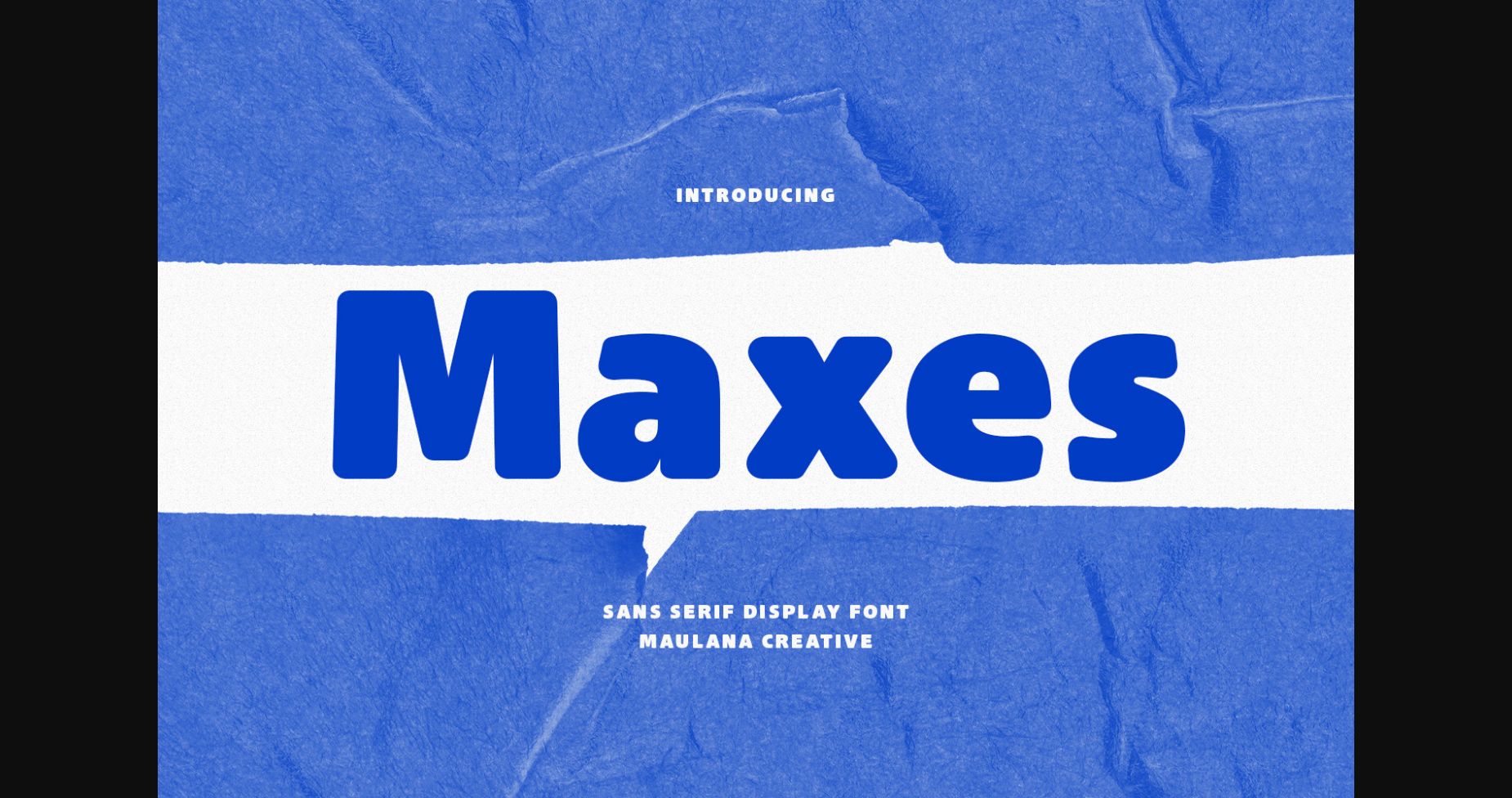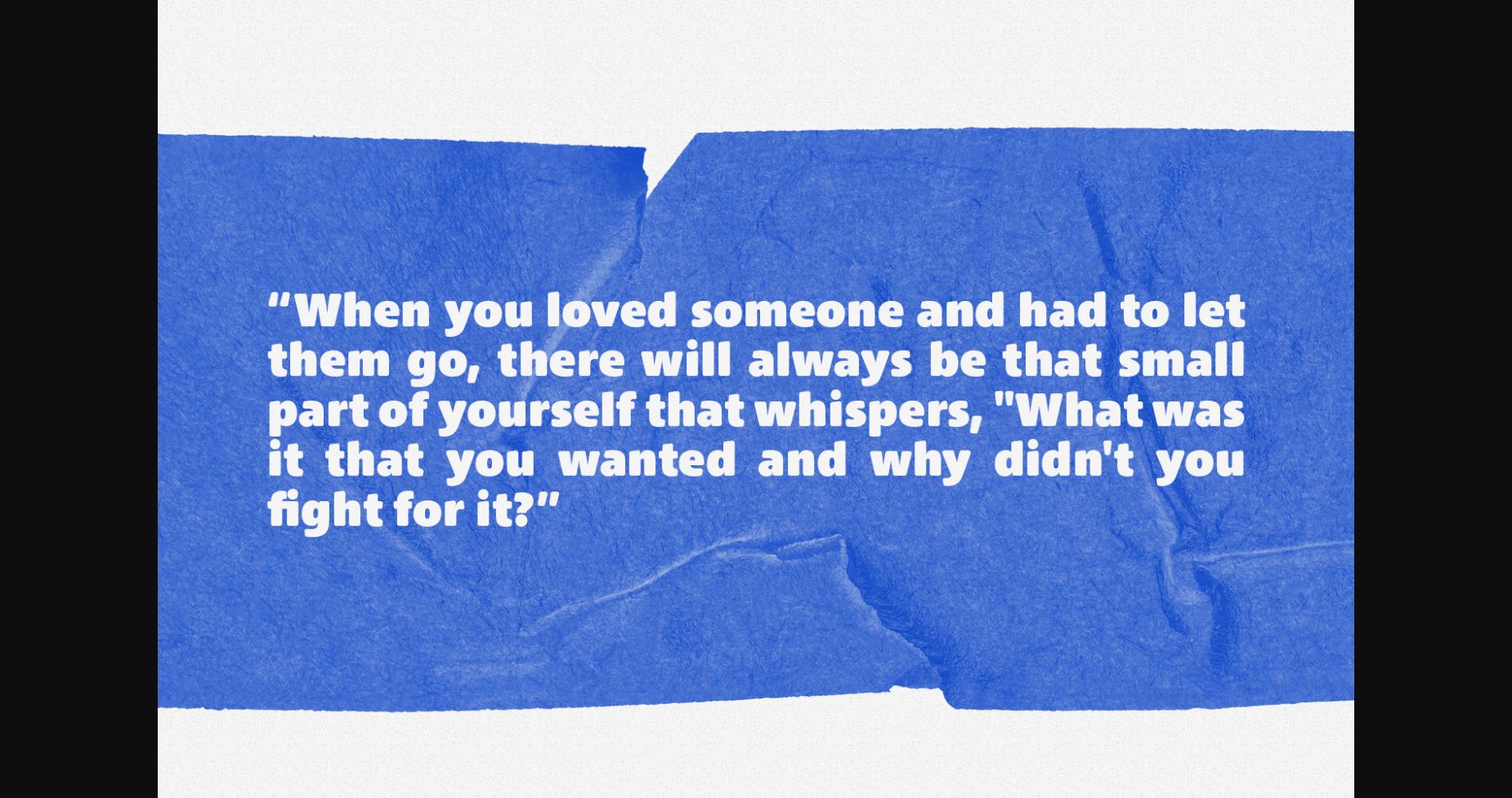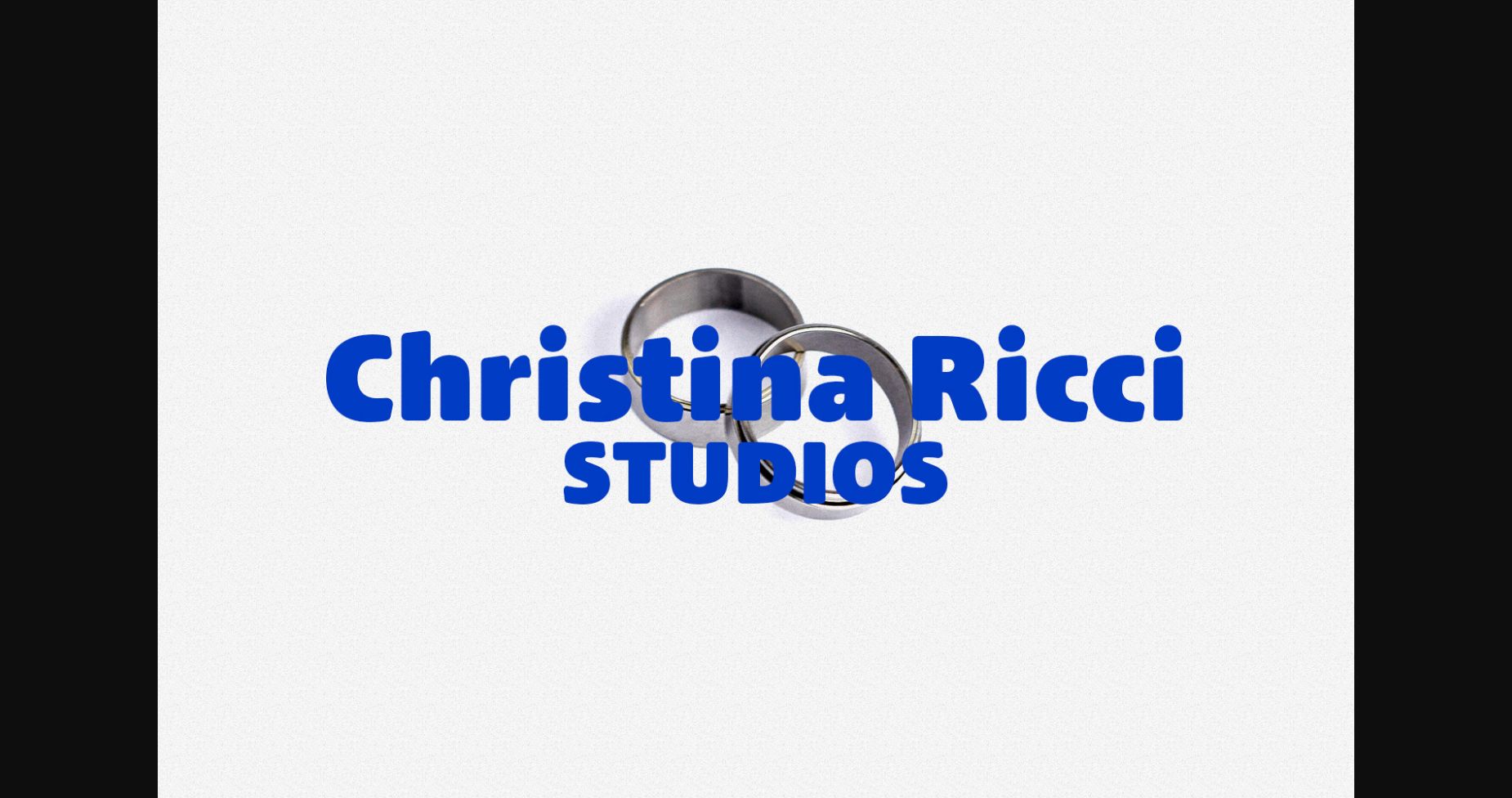
About Maxes Font
Maxes is a bold and modern sans serif font that exudes confidence and strength. Its bold letterforms feature clean lines and geometric shapes, giving it a bold and assertive appearance. The font is perfect for designs that require a sense of modernity and professionalism, such as logos, headings, or print materials for business or technology brands. Maxes is a versatile font that can be used for both body text and headlines, and its bold and modern style makes it perfect for designs that demand attention and convey a sense of power.